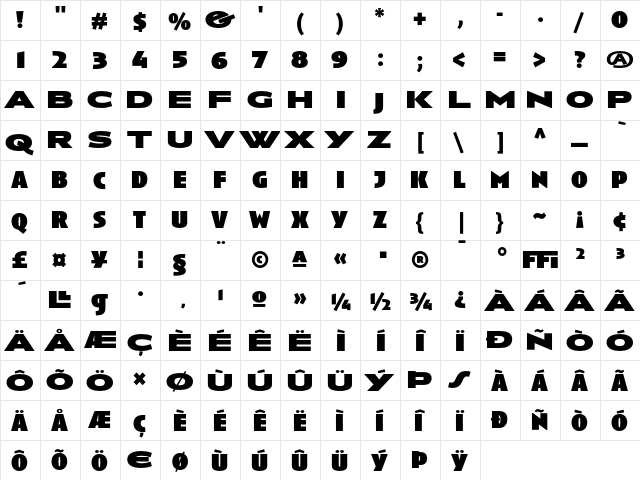
Anisette Black
Design Context for Anisette Typeface
Anisette is a composed and adaptable typeface that performs quietly and consistently across a wide range of design contexts.